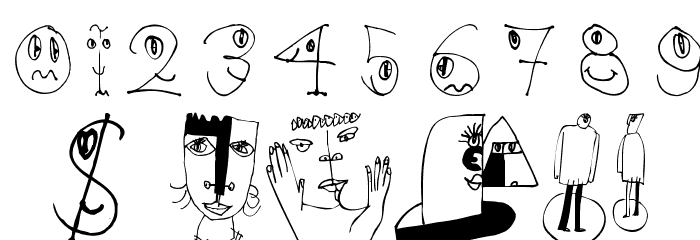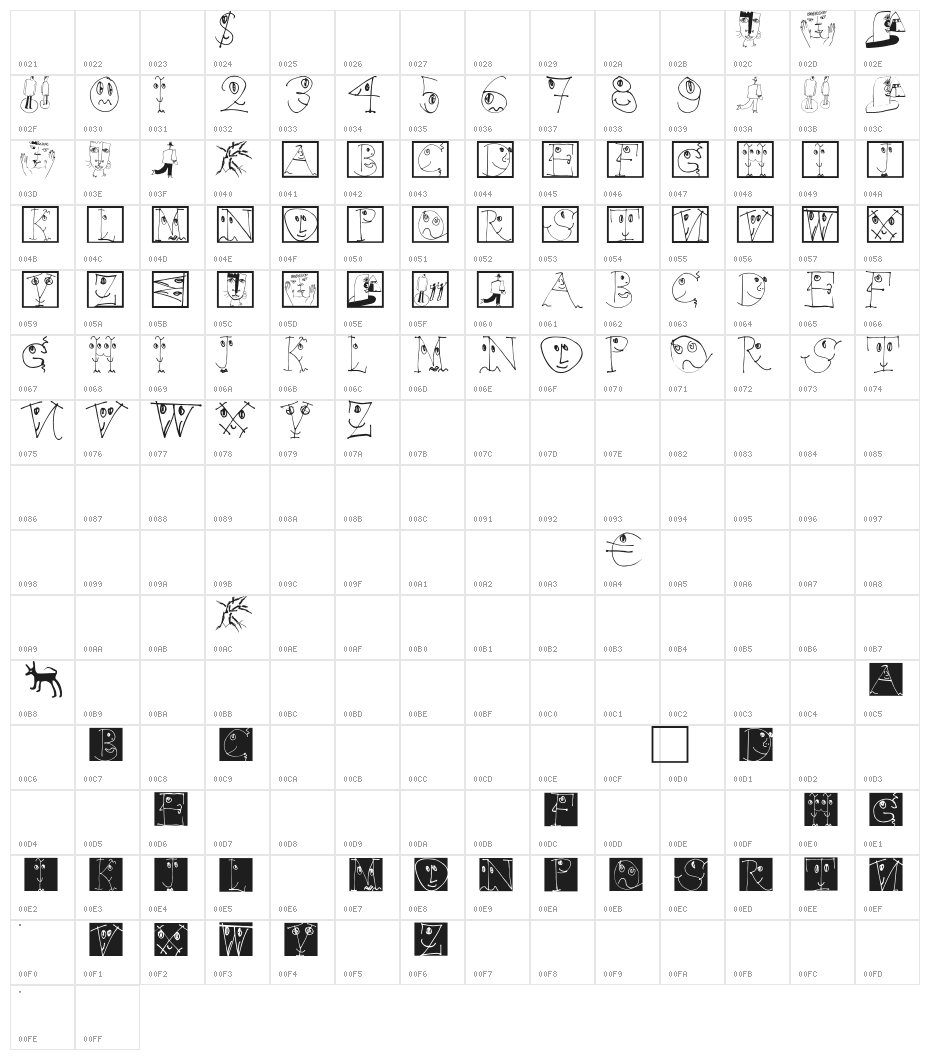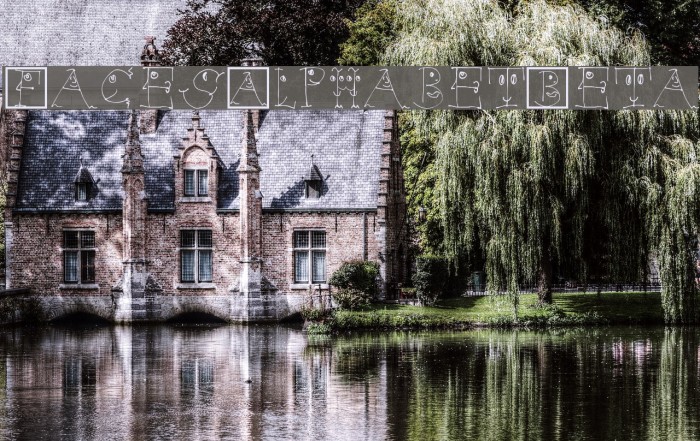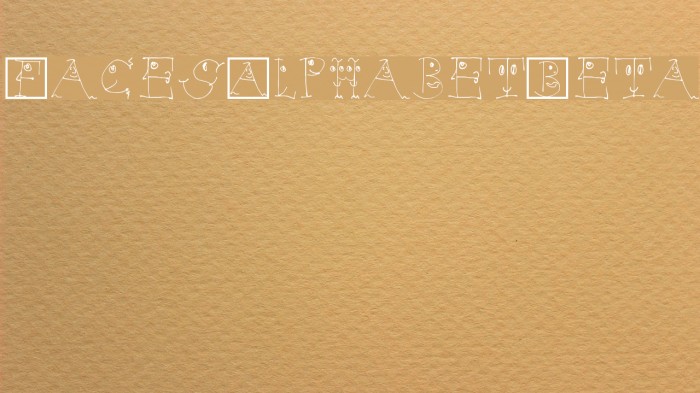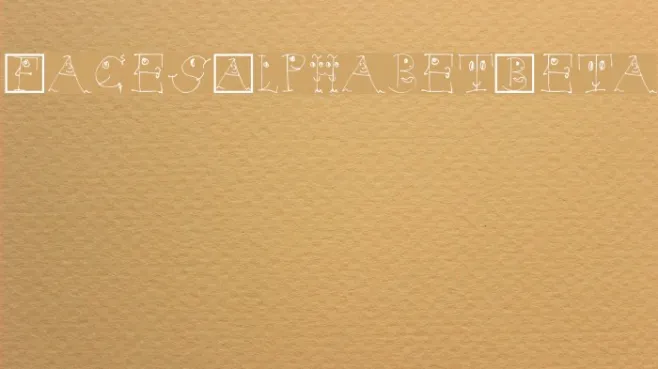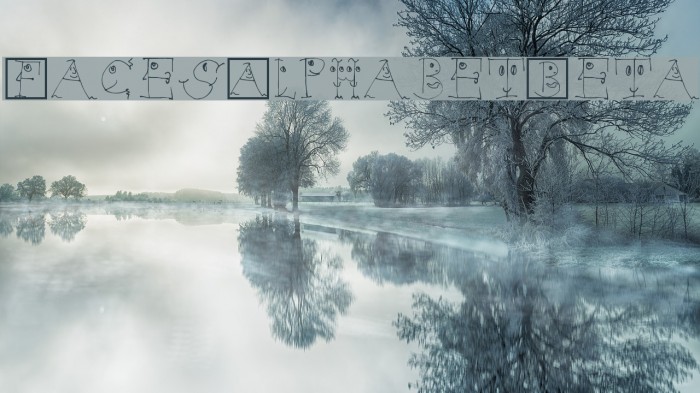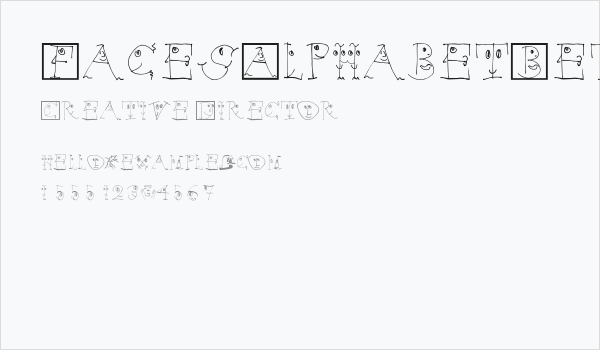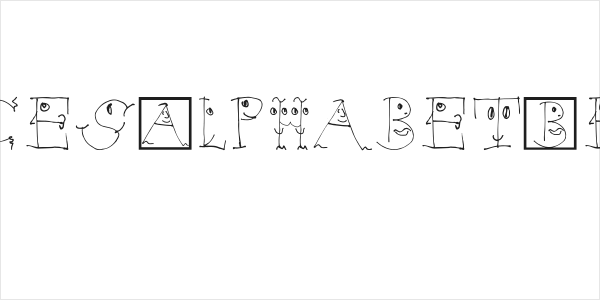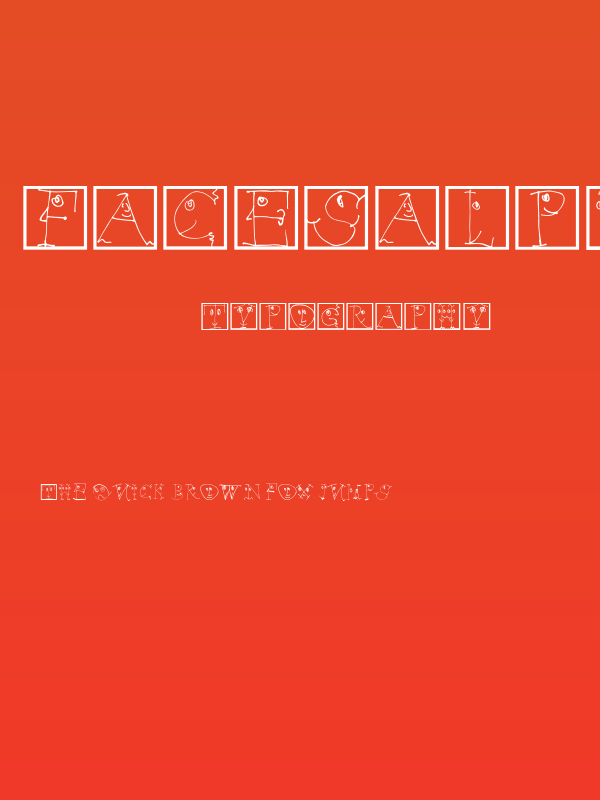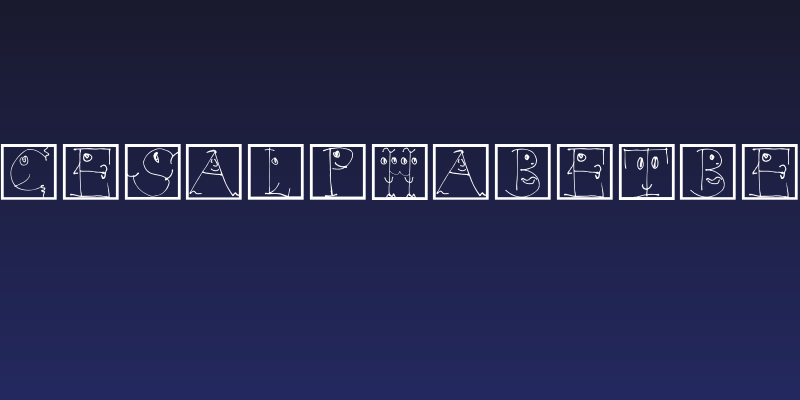
FacesAlphabetBeta Font
FacesAlphabetBeta Description
This font is a whimsical and artistic design where each character is creatively integrated with facial features, giving it a playful and unique appearance. The letters and numbers are adorned with eyes, noses, and mouths, creating a lively and animated feel. The style is highly decorative, with each character standing out due to its distinct personality. The font is perfect for projects that require a touch of humor and creativity, making it ideal for children's books, playful branding, or artistic posters. The characters are drawn with a hand-drawn quality, adding to the overall charm and uniqueness of the design.
| Proposed Projects | Ideal for children's books, playful branding, artistic posters, and creative projects. |